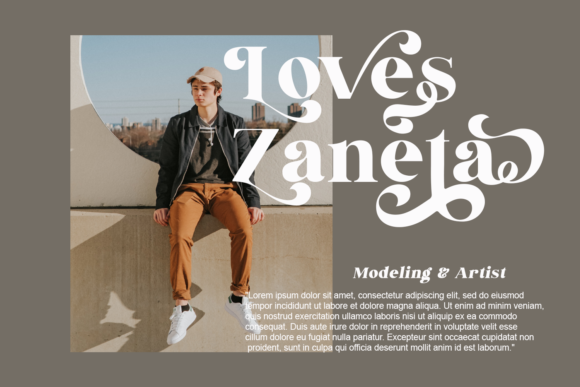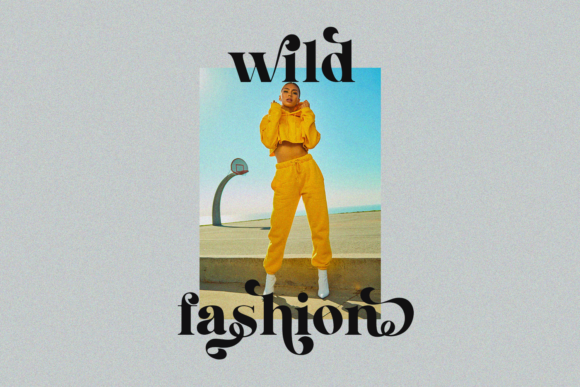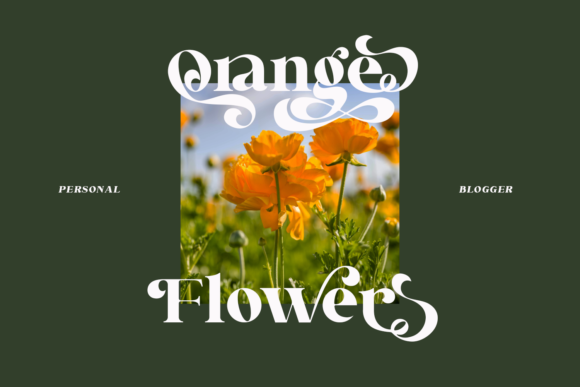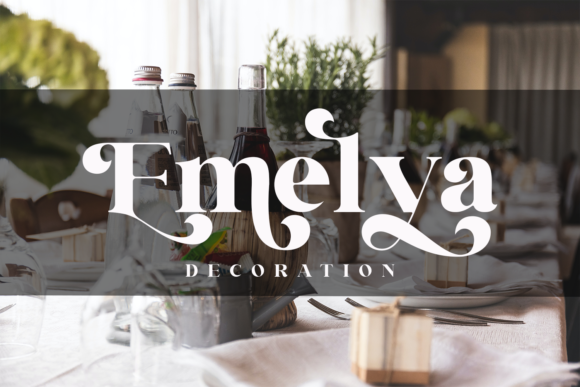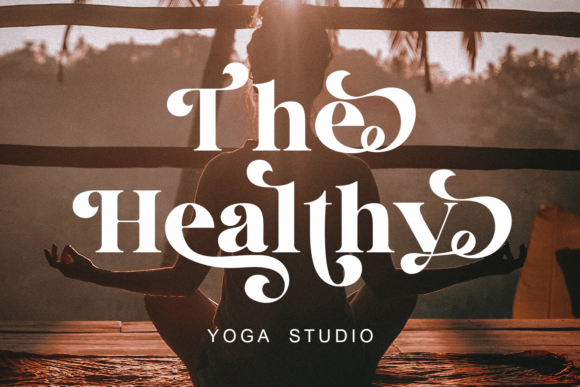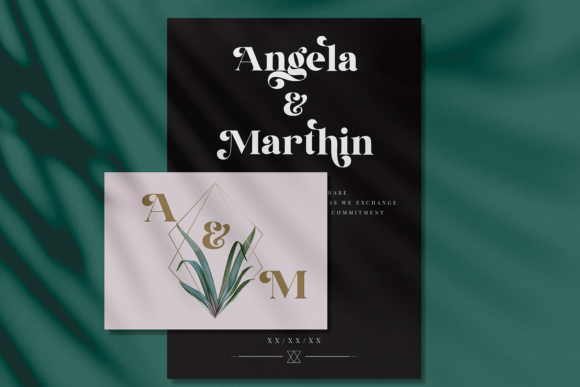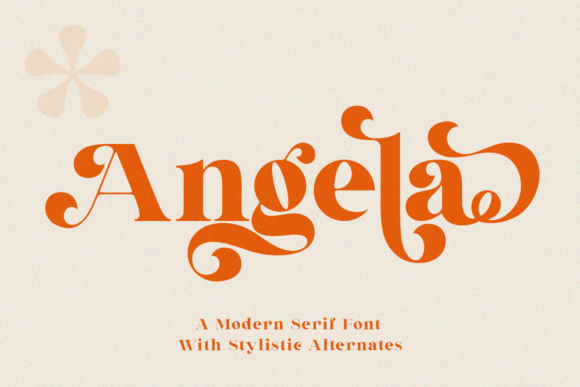
Introducing Angela Font: Elevate Your Designs with Modern Elegance
In the world of typography, a font can make or break a design. For designers and crafters looking to add a touch of sophistication and modernity to their creations, Angela Font stands out as an exceptional choice. This modern, bold, and highly detailed serif font is not only visually stunning but also incredibly versatile and easy to use.
What Makes Angela Font Special?
Angela Font is designed with the contemporary designer in mind. Its bold and detailed serif structure gives it a unique presence that can elevate any project, from elegant branding and advertising to creative crafts and digital media. The font’s modern aesthetic ensures it remains relevant and appealing across various platforms and applications.
One of the standout features of Angela Font is its PUA (Private Use Area) encoding. This means that users can access all the amazing glyphs and ligatures with ease, without the need for complicated software or technical knowledge. PUA encoding allows for straightforward access to the extended character set, making it simple to incorporate the font’s full range of features into your designs.
Key Features of Angela Font
• Modern and Bold Design: Angela Font boasts a contemporary, bold aesthetic with highly detailed serifs, making it perfect for designs that require a touch of elegance and sophistication.
• PUA Encoded: Enjoy easy access to all glyphs and ligatures, allowing for a seamless design experience.
• Highly Versatile: Suitable for a wide range of projects, including branding, advertising, digital media, and crafts.
• Easy to Use: With PUA encoding, using the font’s advanced features is straightforward, even for those with limited technical expertise.
Applications of Angela Font
Angela Font’s versatility makes it an excellent choice for various design projects. Here are some of the many applications where Angela Font can shine:
• Branding and Logo Design: Create memorable and impactful brand identities with the font’s bold and elegant appearance.
• Advertising and Marketing Materials: Use Angela Font to add a touch of sophistication to brochures, flyers, posters, and digital ads.
• Digital Media: Enhance your website, social media graphics, and video content with a modern and professional typography.
• Crafts and DIY Projects: Add a professional finish to your handmade crafts, such as journals, planners, and greeting cards.
Tips for Using Angela Font
To make the most of Angela Font, consider the following tips:
• Pair with Complementary Fonts: Combine Angela Font with simpler fonts for body text to create visual contrast and hierarchy.
• Experiment with Sizes and Weights: Play with different sizes and weights to add depth and emphasis to your designs.
• Utilize Glyphs and Ligatures: Take advantage of the font’s PUA encoding to explore the range of glyphs and ligatures, adding unique touches to your work.
Angela Font is a powerful tool for designers and crafters looking to infuse their projects with a modern, bold, and elegant typography. Its PUA encoding, detailed serifs, and versatile design make it an excellent addition to any creative toolkit. Whether you’re working on branding, advertising, digital media, or crafts, Angela Font can help you achieve professional and eye-catching results. Add it to your collection today and discover the impact it can have on your designs.